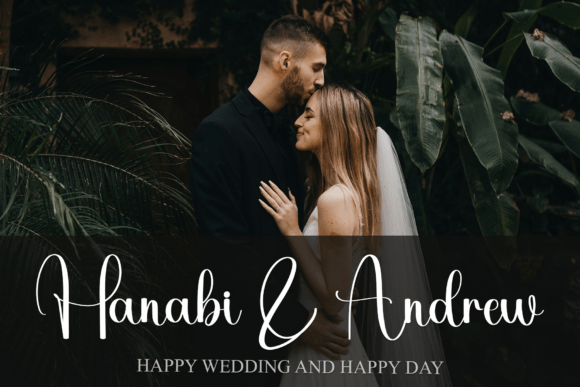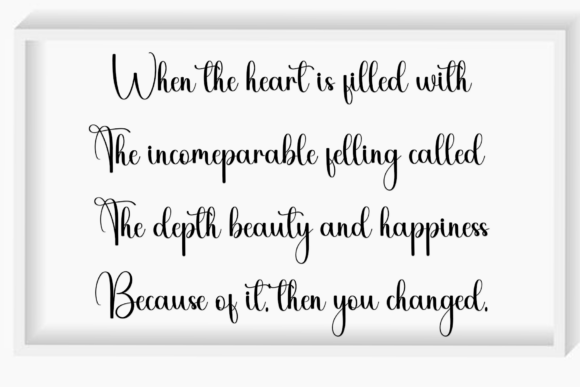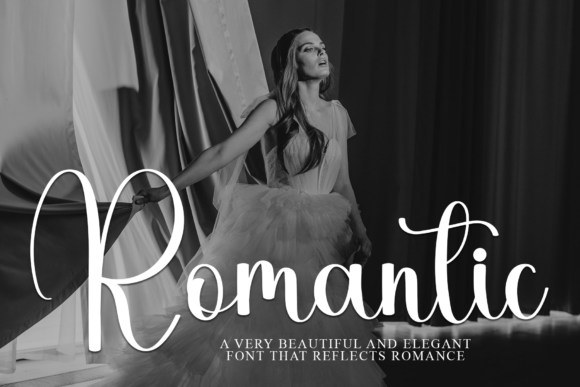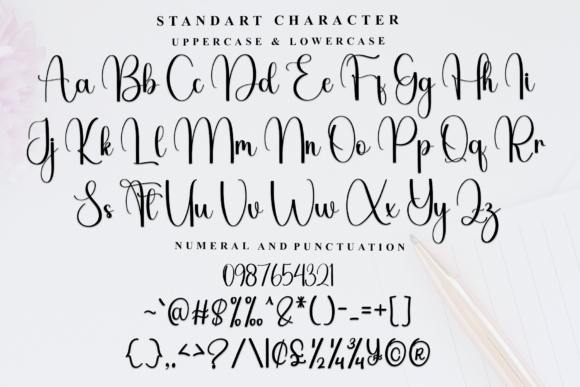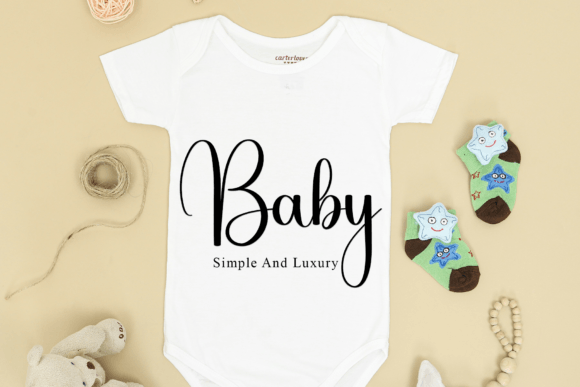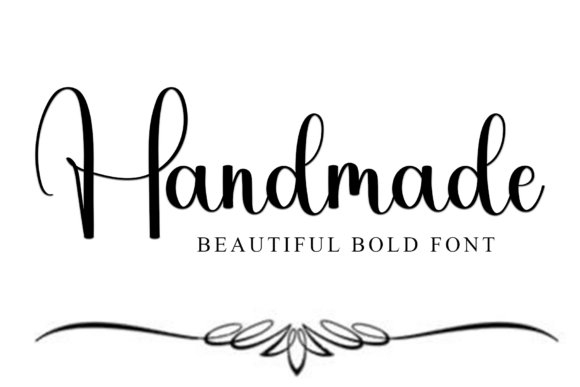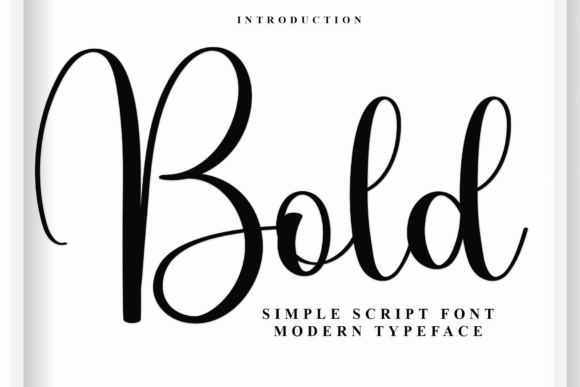
Introducing Bold Font: The Epitome of Elegance and Sophistication
In the realm of typography, few fonts manage to convey the essence of elegance and class as effectively as Bold Font. This exquisite script font is meticulously crafted to infuse a sense of refinement and poise into any design project. Whether you’re a seasoned designer or a crafty enthusiast, Bold Font is an excellent addition to your typographic arsenal.
The Beauty of Bold Font
Bold Font is a lovely and delicate script font that exudes sophistication and luxury. Its unique charm lies in its ability to strike the perfect balance between elegance and legibility. The font’s flowing lines and curves are carefully designed to create a visually appealing aesthetic that elevates any design project. Whether you’re working on a logo, invitation, or branding material, Bold Font is sure to make a lasting impression.
Crafted with Precision and Passion
Bold Font was particularly crafted for those who need a beautiful and refreshing look to their designs. The font’s creator has poured their heart and soul into perfecting every detail, ensuring that each letterform is a masterpiece in its own right. From the subtle nuances of letter spacing to the precision of stroke widths, every aspect of Bold Font has been meticulously considered to provide an unparalleled typographic experience.
One of the standout features of Bold Font is its versatility. This font can be used across a wide range of design applications, from elegant wedding invitations and sophisticated business cards to stylish logos and branding materials. Its adaptability makes it an excellent choice for designers and crafters who need a font that can keep up with their creative vision.
Why Choose Bold Font?
So, what sets Bold Font apart from other script fonts on the market? Here are just a few compelling reasons to choose Bold Font for your next design project:
• Elegance and sophistication: Bold Font’s unique design ensures that your projects exude class and refinement.
• Legibility: Despite its delicate nature, Bold Font remains highly legible, making it perfect for body text and headings.
• Versatility: Use Bold Font across various design applications, from print to digital media.
Tips for Using Bold Font
To get the most out of Bold Font, here are a few expert tips to keep in mind:
• Pair with contrasting fonts: Combine Bold Font with a contrasting font to create visual interest and hierarchy.
• Experiment with colors: Bold Font looks stunning in a range of colors, from metallic tones to rich jewel tones.
• Pay attention to spacing: Adjust letter spacing to create a sense of flow and harmony in your design.
In conclusion, Bold Font is a truly exceptional script font that embodies the perfect blend of elegance, sophistication, and versatility. Whether you’re a designer, crafter, or simply someone who appreciates beautiful typography, Bold Font is an excellent addition to your creative toolkit. With its delicate lines, flowing curves, and precision craftsmanship, Bold Font is sure to elevate your design projects to new heights.